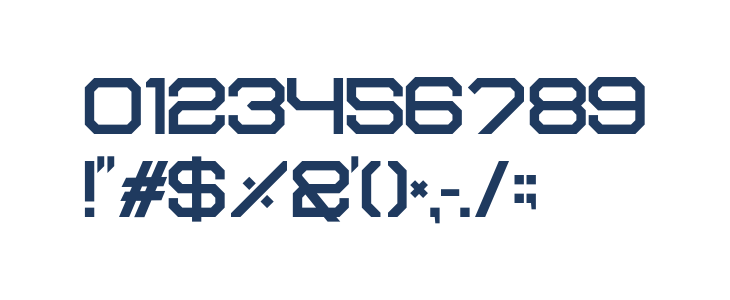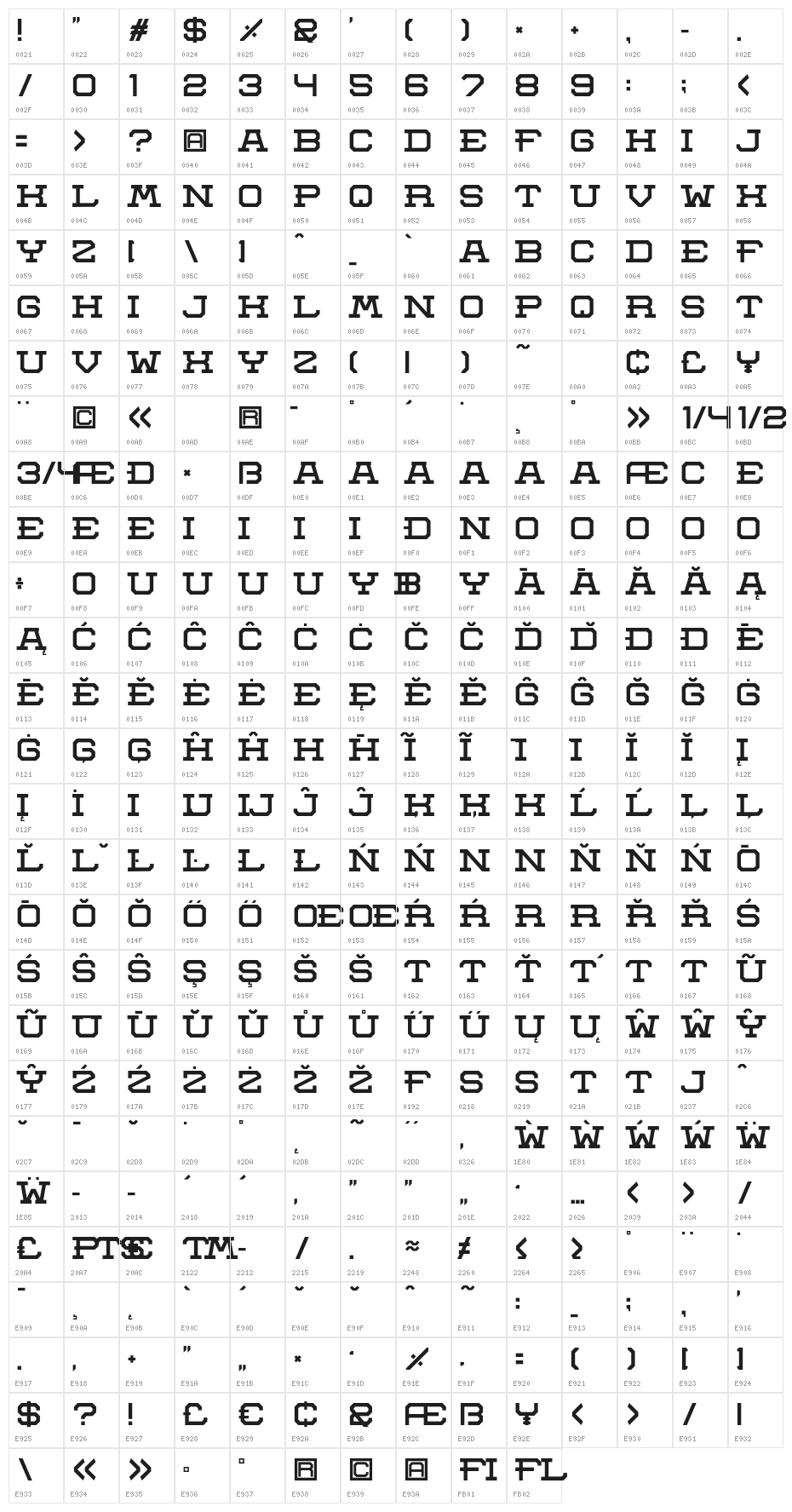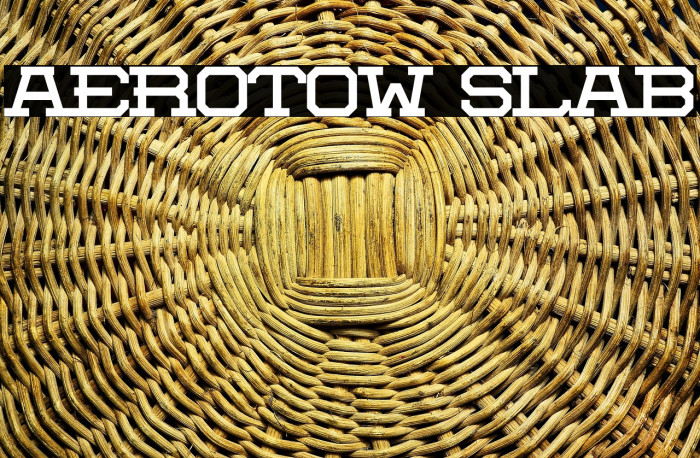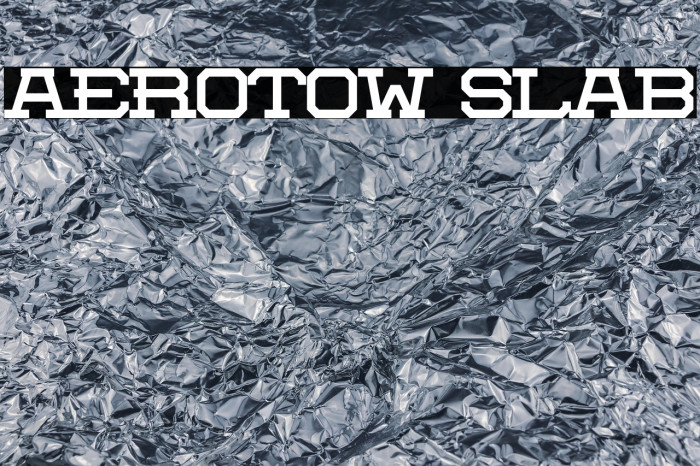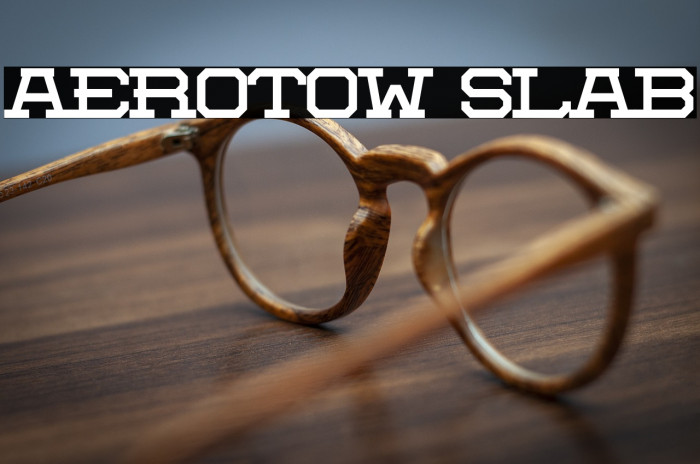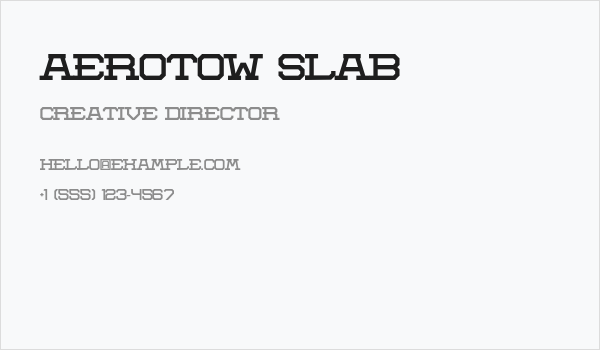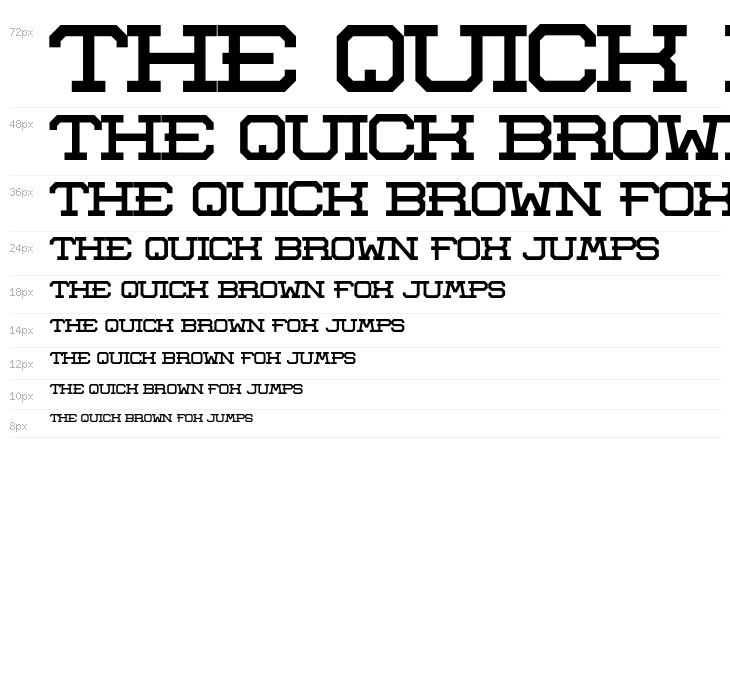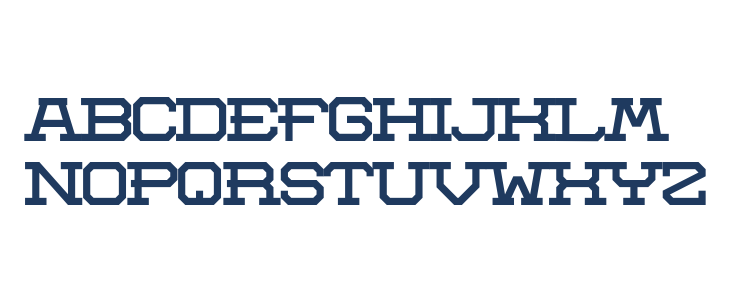
Aerotow Slab Font
Aerotow Slab Description
This font features a bold and geometric design with strong slab serifs. The characters are constructed with a consistent stroke width, giving them a robust and industrial appearance. The uppercase letters are particularly striking, with angular and sharp edges that create a sense of strength and stability. The numerals and special characters maintain this bold aesthetic, ensuring uniformity across all glyphs. The font's overall style is modern and assertive, making it suitable for projects that require a commanding visual presence.
| Proposed Projects | Ideal for branding, posters, headlines, and any design that requires a strong, impactful typeface. |